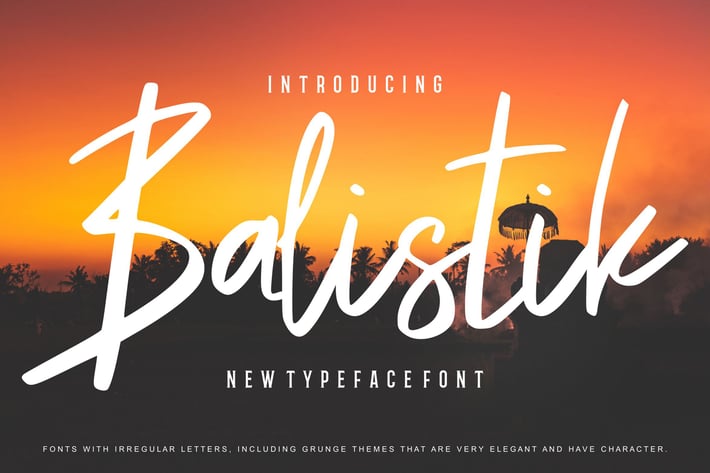
Balistik | Modern Script Font
Balistik | Modern Script Font with a calligraphy style, So beautiful on invitation like greeting cards, branding materials, business cards, quotes, posters, and more!
Hundred of glyphs